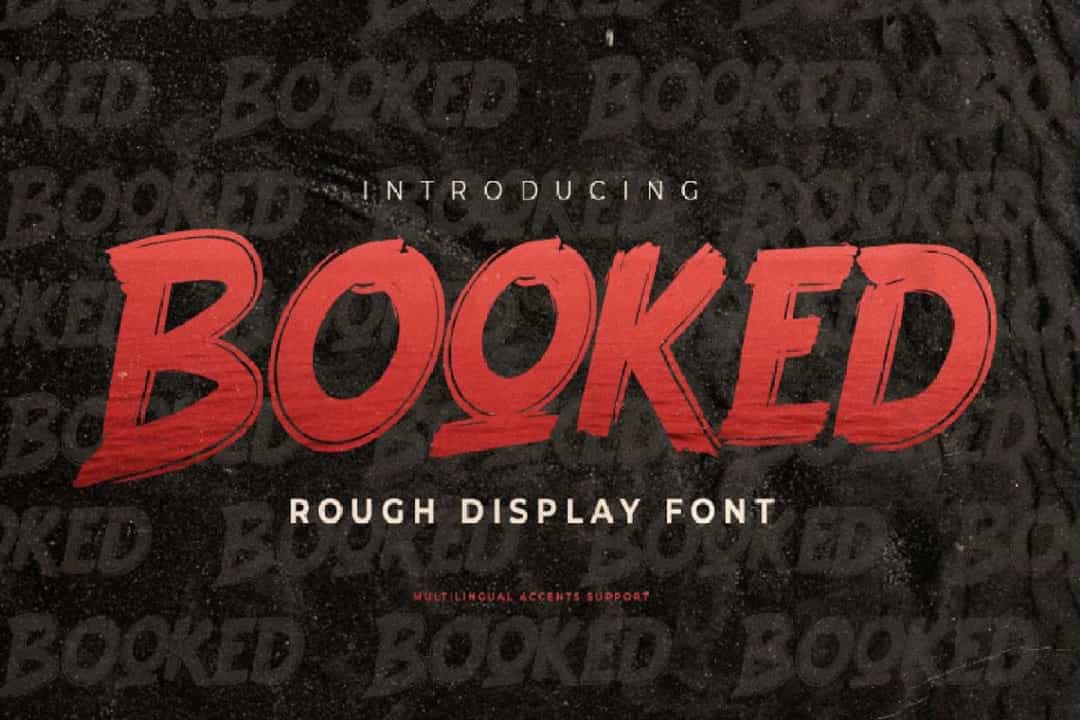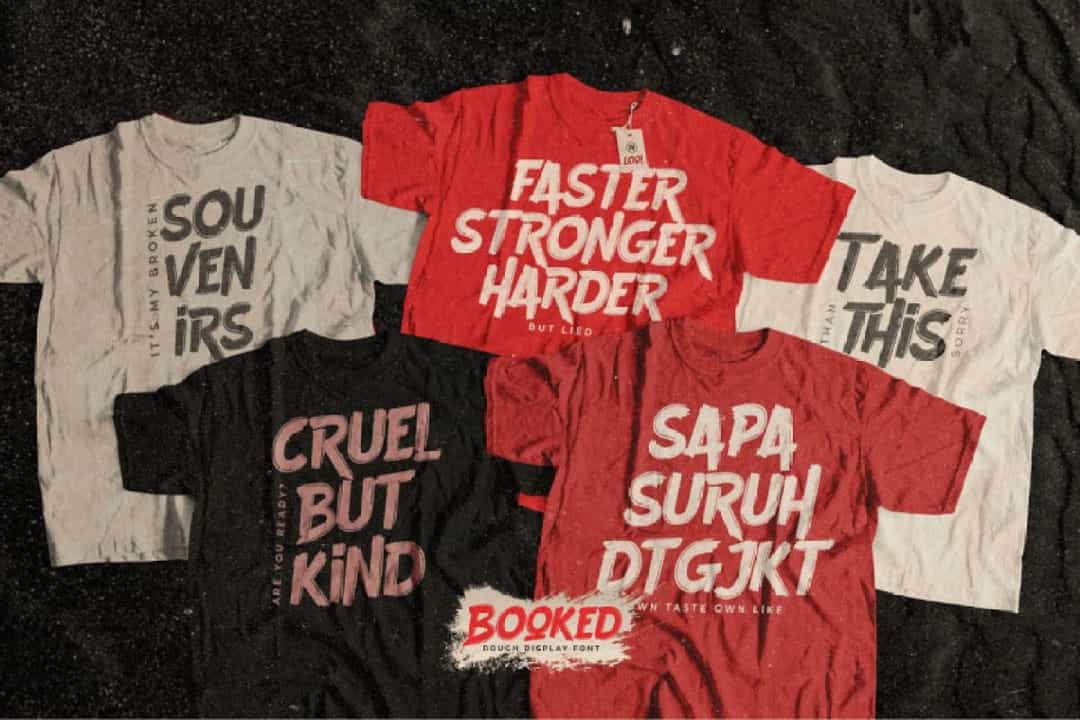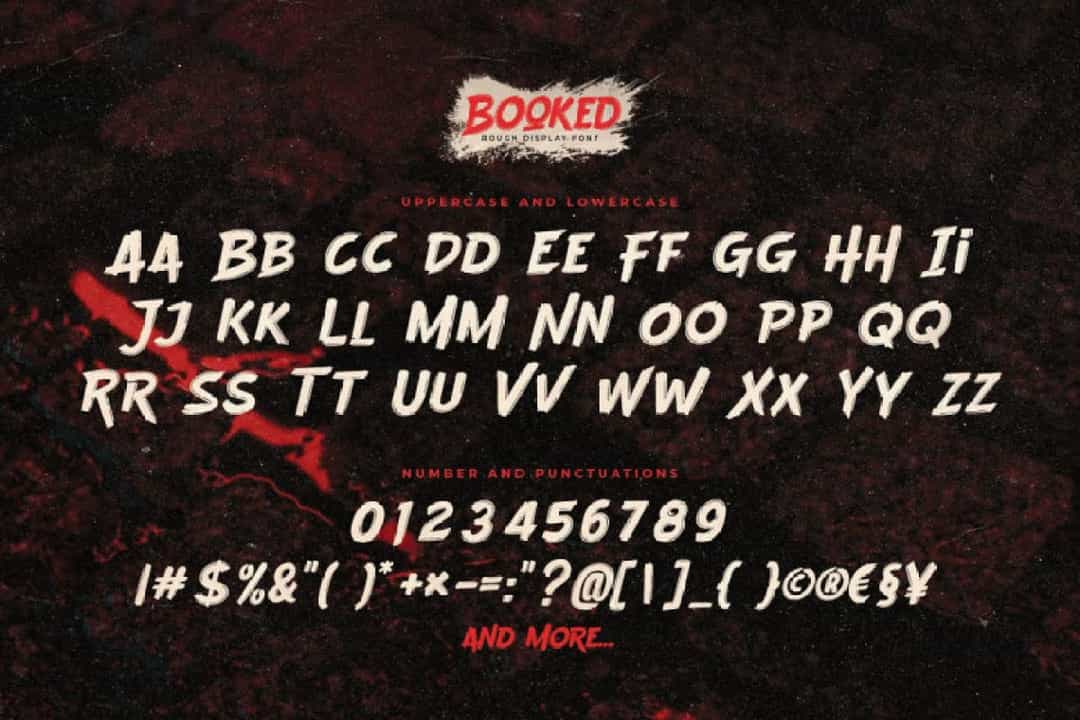
Booked is a rough display font featuring natural, textured lines as well as sleek sophistication with dramatic motion. Perfect for logos, printed quotes invitations, cards, product packaging headers, logotype Posters Letterhead Posters or watermarks in photography projects!